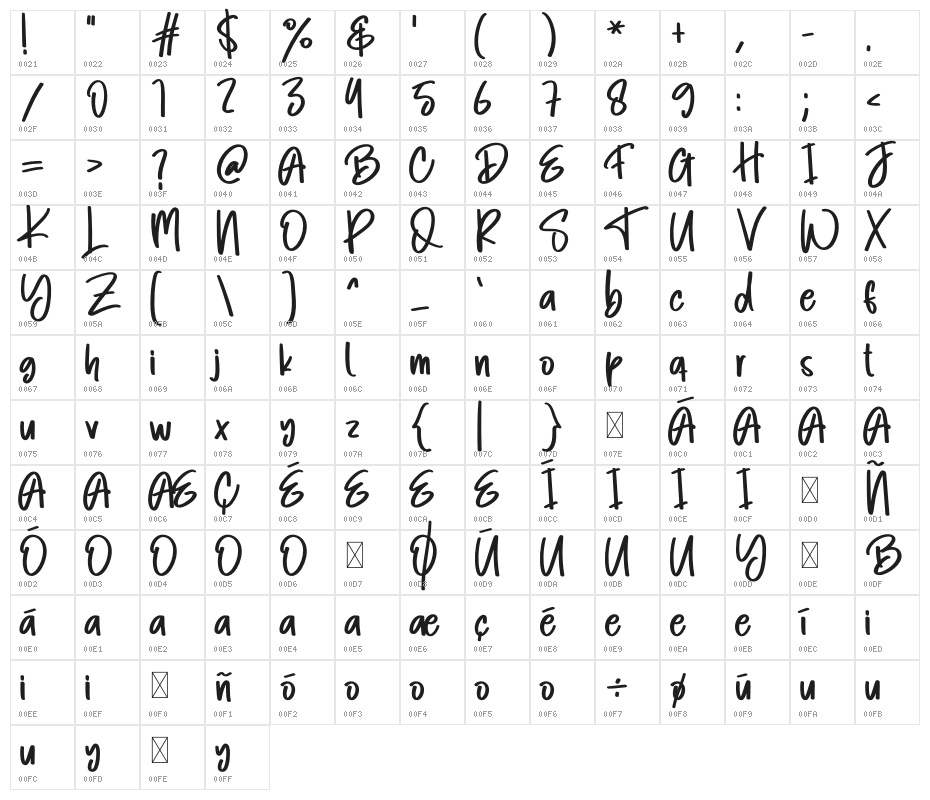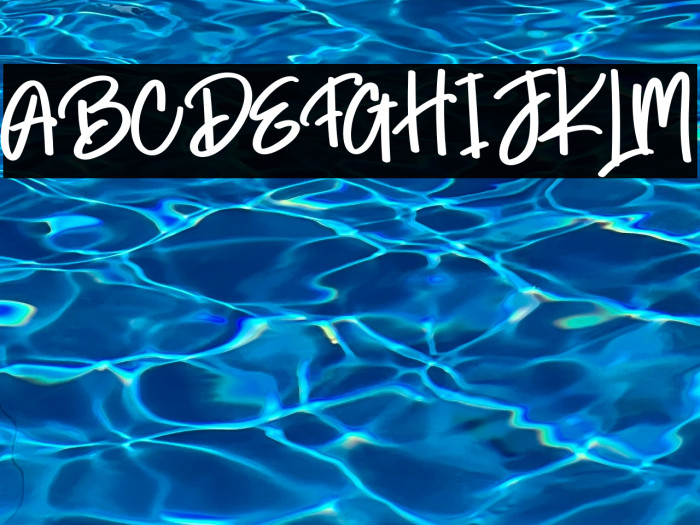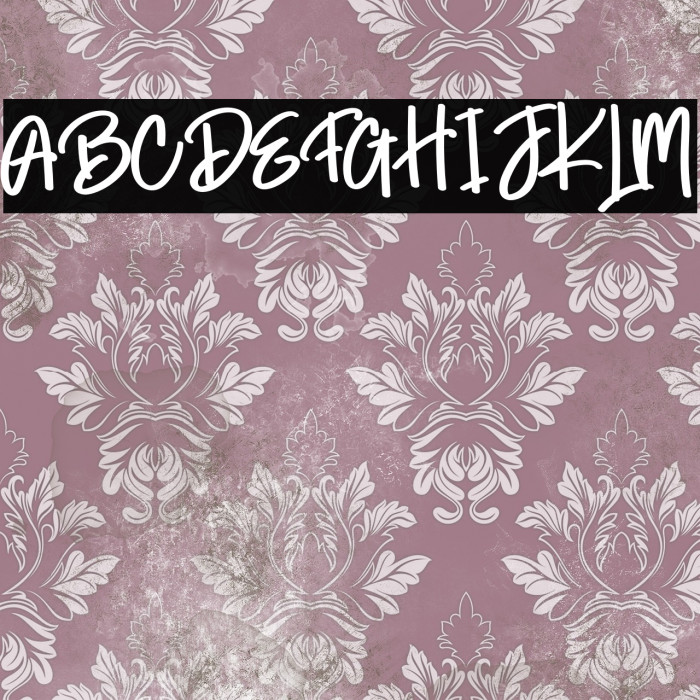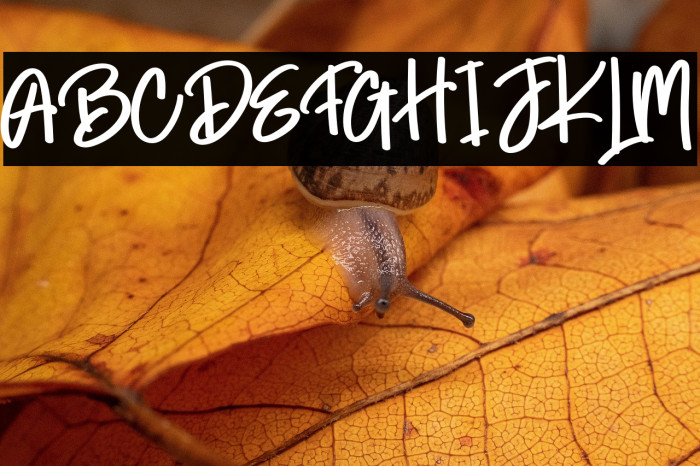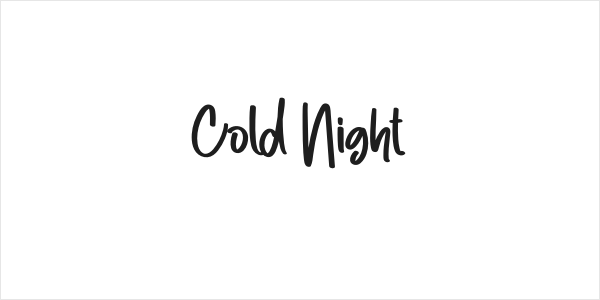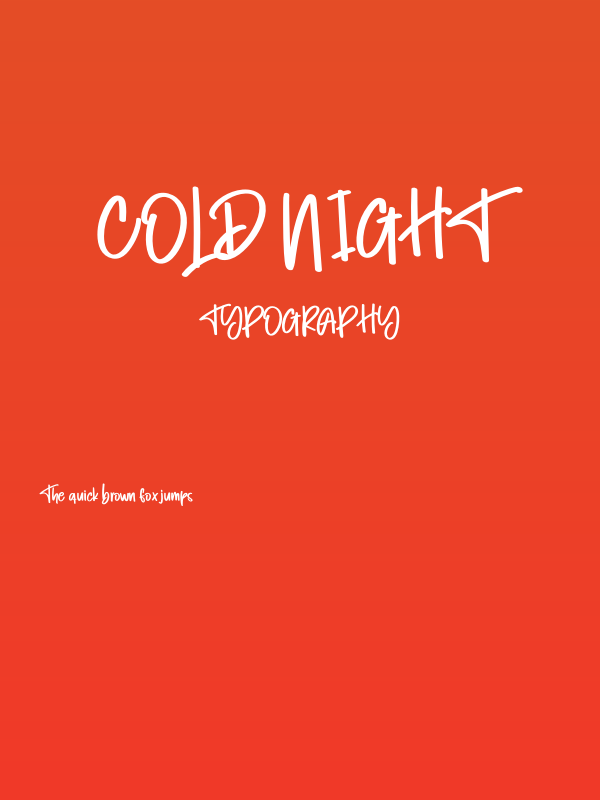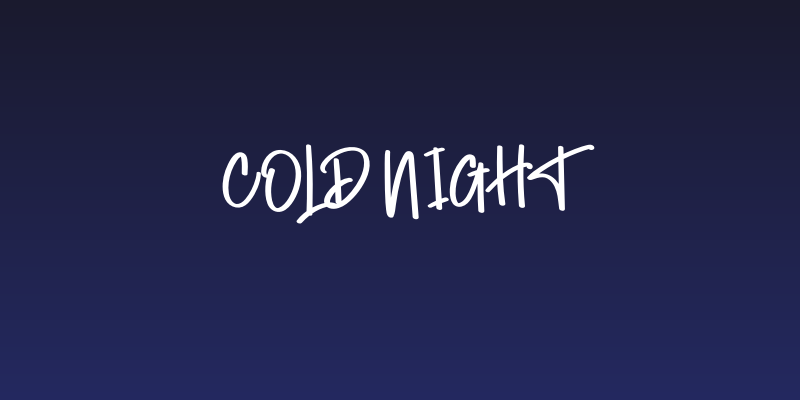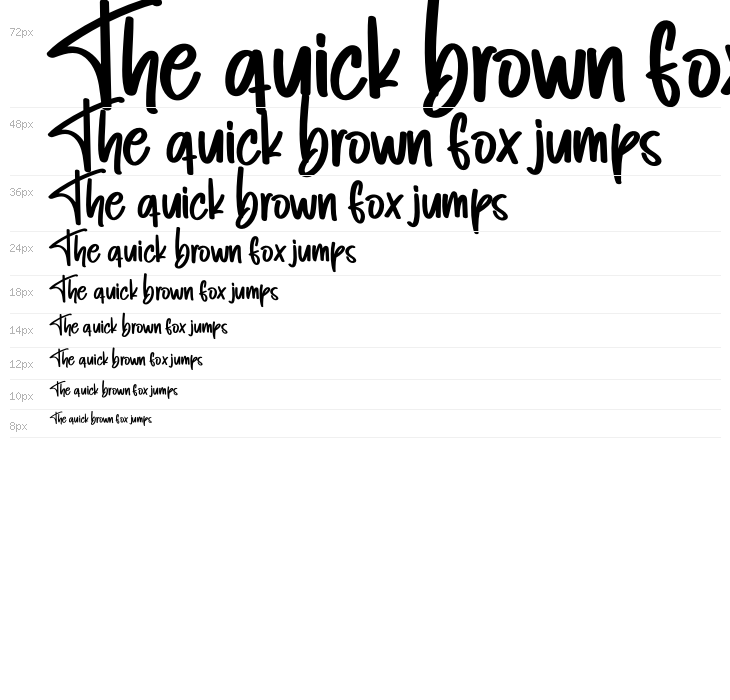
Cold Night Font
Cold Night Description
This font features a playful and energetic handwritten style, characterized by its bold and expressive strokes. The uppercase letters exhibit a casual flair with slightly exaggerated curves and loops, while the lowercase letters maintain a consistent flow with a touch of whimsy. The numbers are dynamic and maintain the same lively aesthetic, making them stand out. Special characters are creatively designed, adding to the font's overall charm. The font's informal and friendly appearance makes it suitable for projects that require a personal touch or a sense of fun.
| Overall Style | Playful |
| Use Case | Headlines, Logos, Informal Invitations |
| Proposed Projects | Ideal for greeting cards, posters, social media graphics, and branding projects that aim to convey a fun and approachable vibe. |